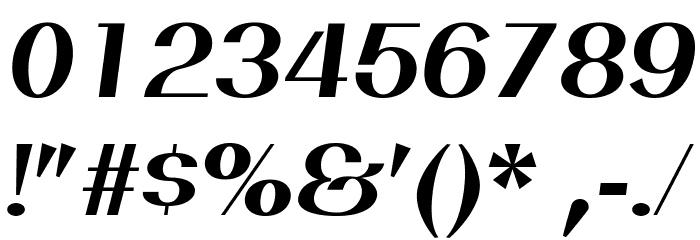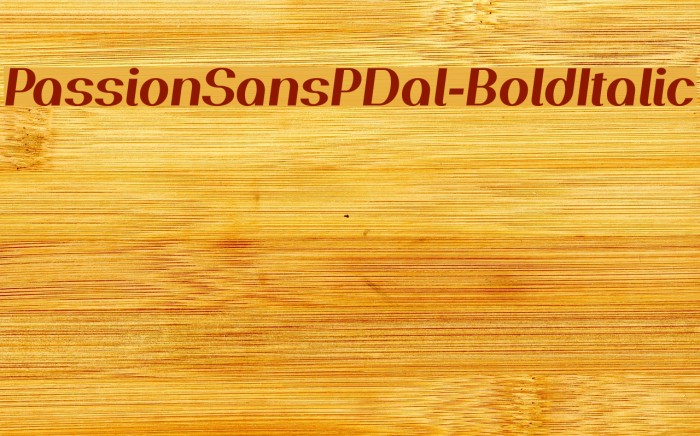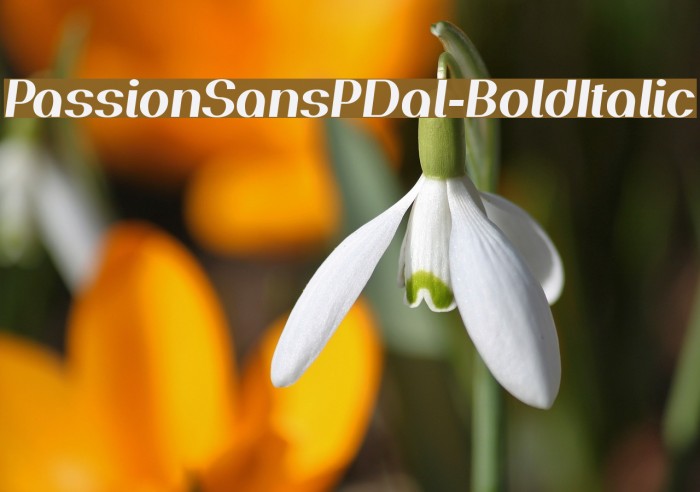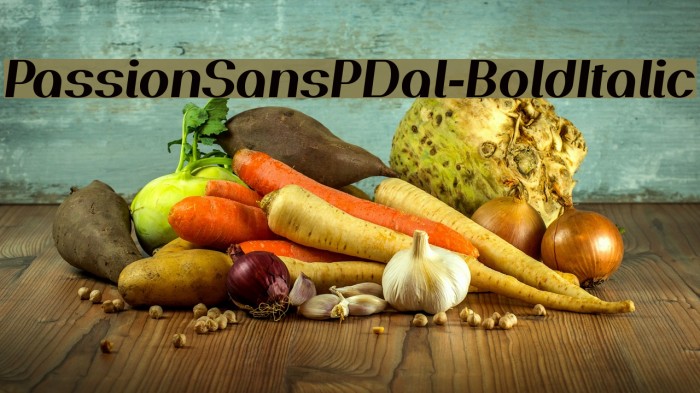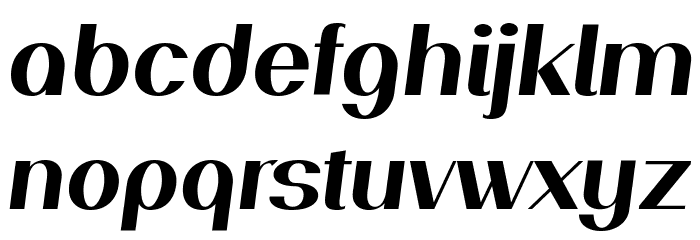
PassionSansPDal-BoldItalic Font
This font exhibits a modern and sleek design with a distinct italic slant, giving it a dynamic and forward-moving appearance. The characters are bold, with a consistent stroke width that provides a strong visual impact. The uppercase letters are tall and commanding, while the lowercase letters maintain a harmonious balance with slightly rounded edges, adding a touch of softness. The numerals are clear and legible, matching the overall boldness of the font. Special characters are well-defined, enhancing the font's versatility for various applications.
A modern, bold italic font with a sleek and dynamic style.
• Proposed Projects: Ideal for branding, advertising, and editorial design where a strong, modern impression is desired.
• Category: Sans-Serif
• Bold: Yes
• Italic: Yes
• Weight: Bold
• Width: Normal
• Character Spacing: Normal
• Contrast: Low
• Overall Style: Modern
• Use Case: Headlines, Logos, Branding